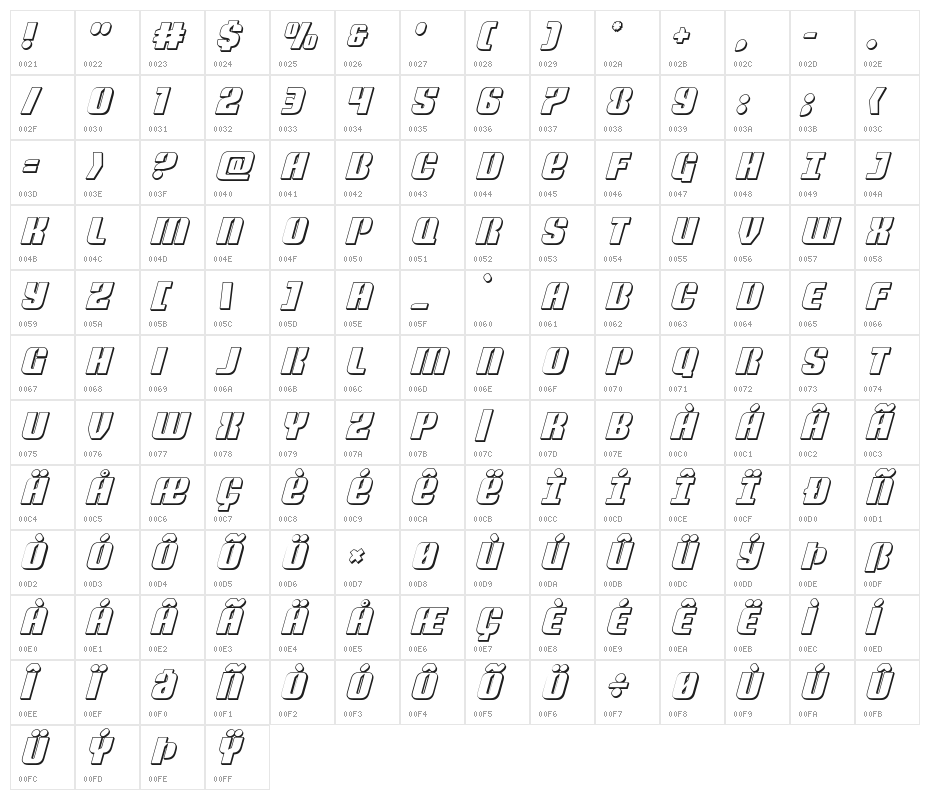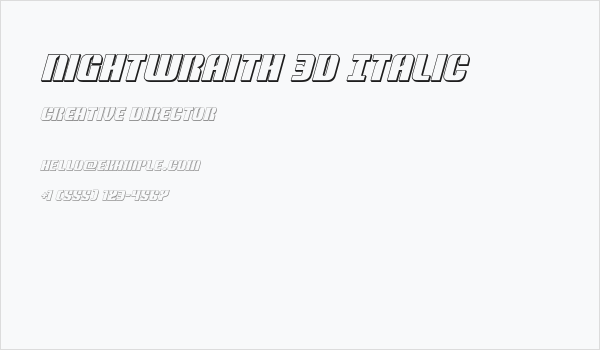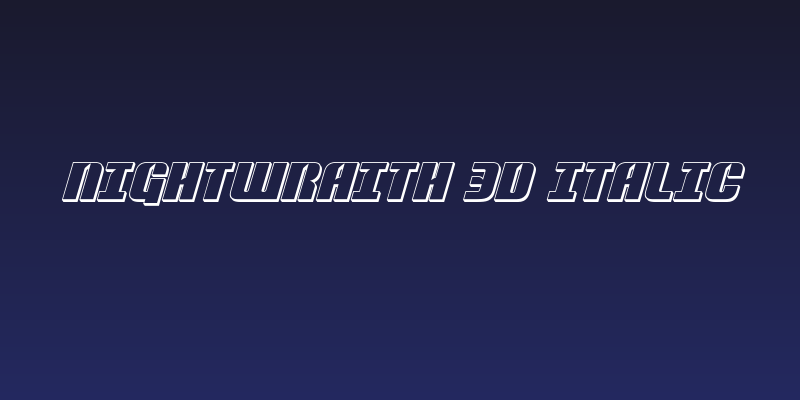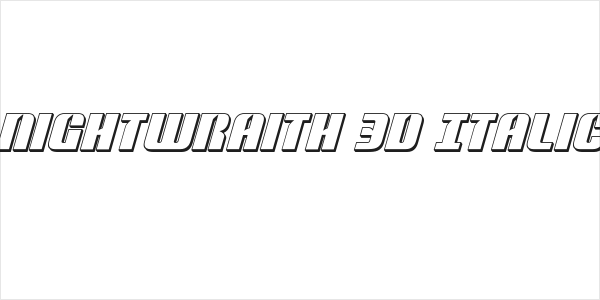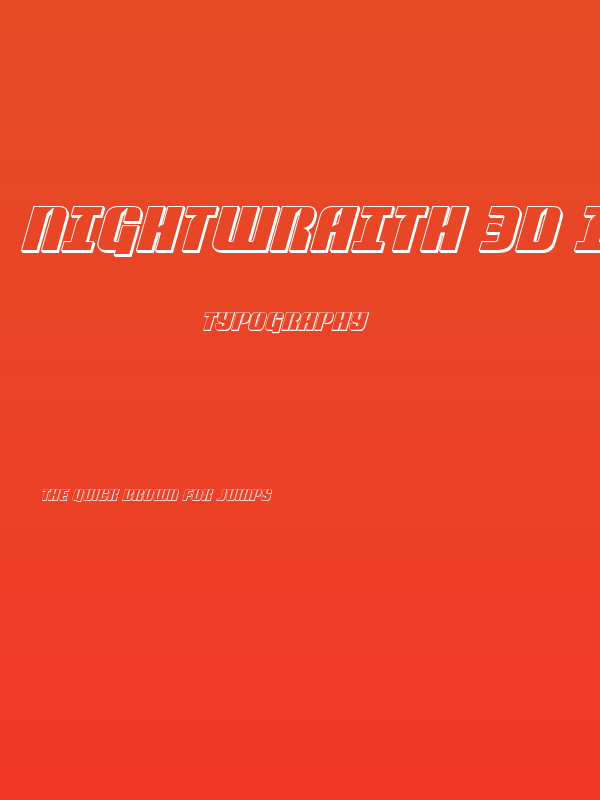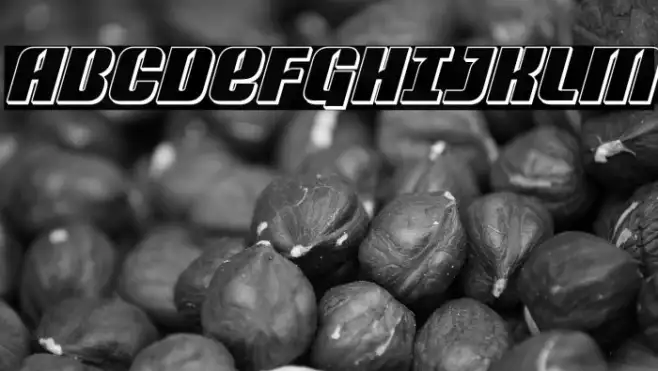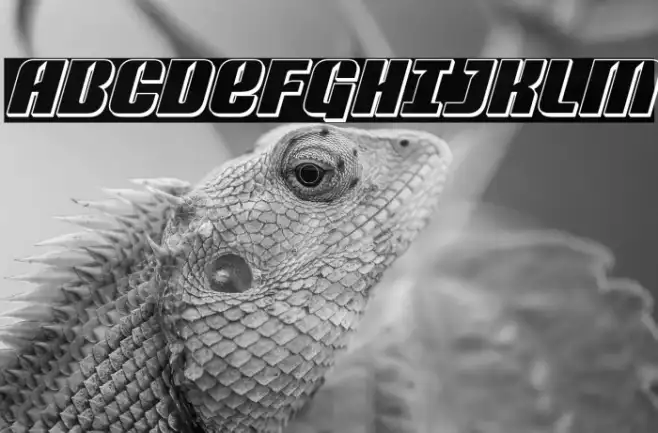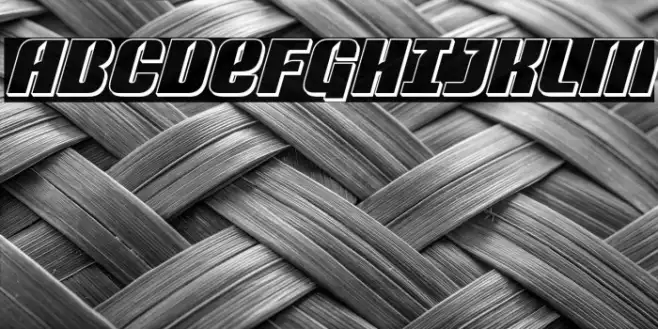
Nightwraith 3D Italic Font
Nightwraith 3D Italic Description
This font features a bold, three-dimensional design with a distinct italic slant, giving it a dynamic and futuristic appearance. The characters are outlined, creating a shadow effect that enhances the 3D illusion. The uppercase and lowercase letters maintain a consistent style, with sharp angles and clean lines that contribute to its modern aesthetic. The numerals and special characters follow the same design principles, ensuring uniformity across all glyphs. This font's unique style makes it stand out, perfect for projects that require a bold and eye-catching typeface.
| Proposed Projects | Ideal for video game titles, sci-fi movie posters, technology branding, and any project needing a striking, modern typeface. |